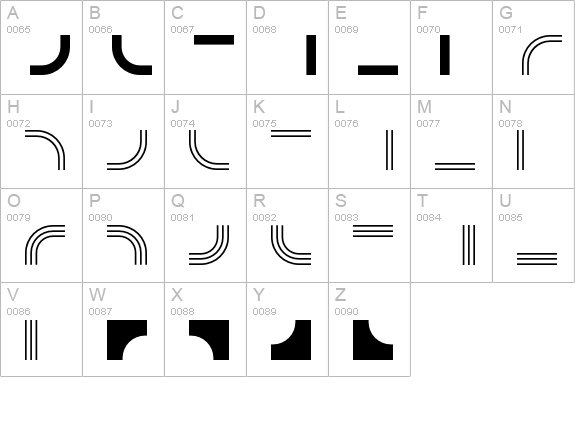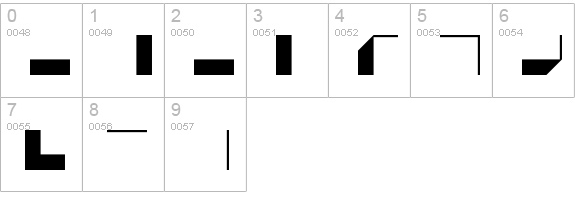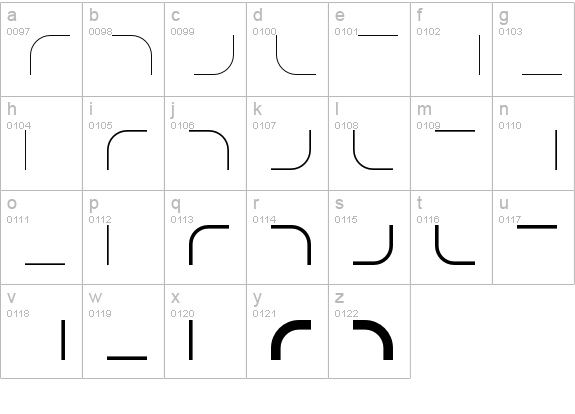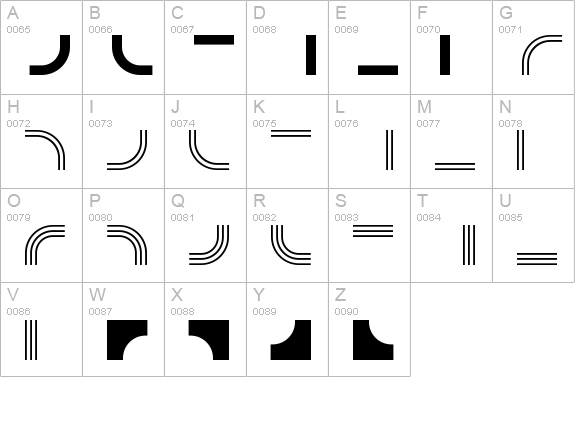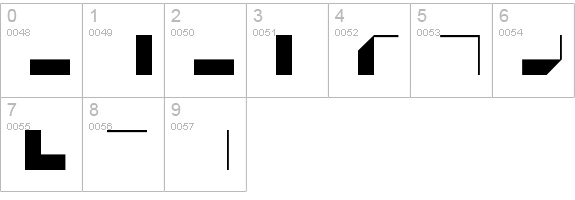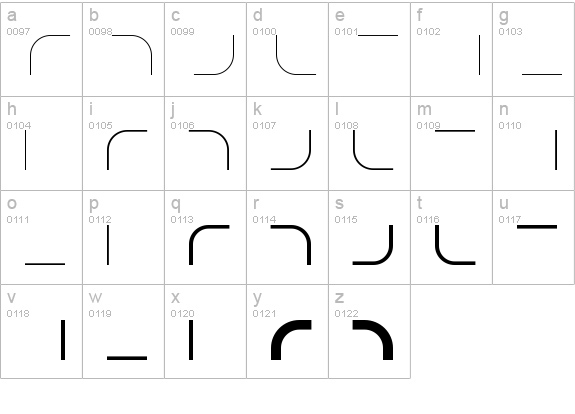
Border Pi 1515-9 font is a unique and decorative typeface that is perfect for adding a touch of elegance to your designs. This font features intricate border designs that can be used to enhance headers, titles, or other text elements. With its stylish and sophisticated look, Border Pi 1515-9 font is sure to make your projects stand out. The best part is that Border Pi 1515-9 font is completely free to download at FontsMarket.com. This means you can easily access this beautiful font and use it in your personal or commercial projects without any cost. Whether you are working on a poster, invitation, or branding design, Border Pi 1515-9 font will add a special touch to your creations. Download it now and elevate your designs with this stunning typeface.